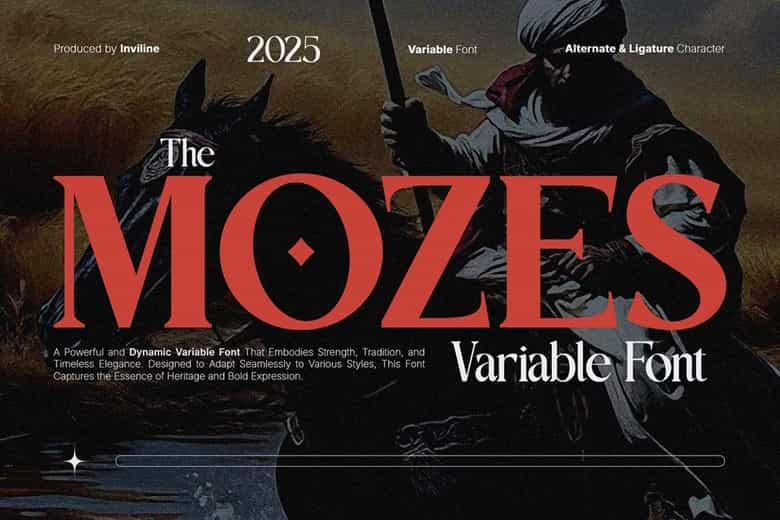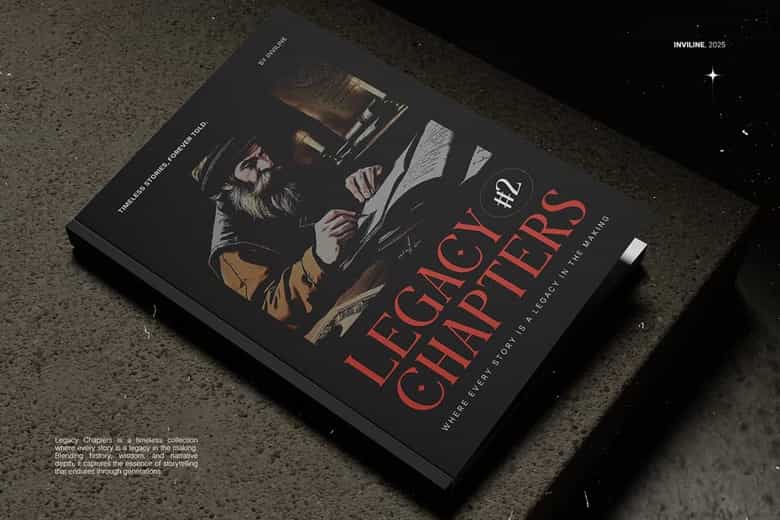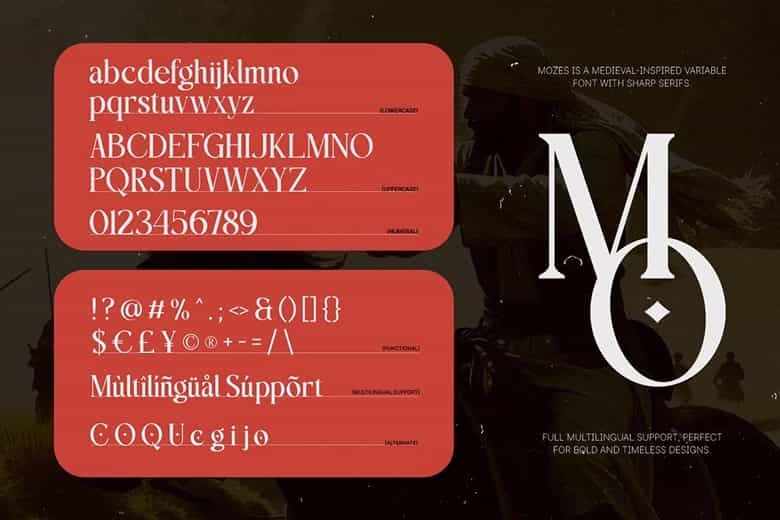
Mozes is an extroverted and vigorous variable serif typeface. Mozes is an architecture designed for the year 2025 and combines the aesthetics of beauty and strength typical of the modern style. Applicable to different style of architecture, Mozes manages to embody history and courage in its design. Ligature available and comes with alternate characters, Mozes is suitable for numerous types of design styles.